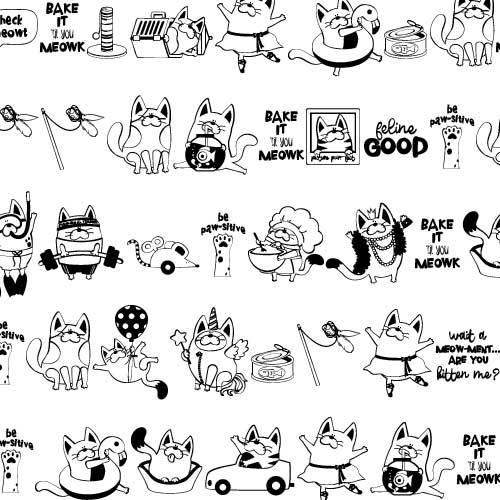
DB Check Meowt - DB
This adorable doodlebat font features 26 whimsical cats living their best life. Perfect for cards, crafts, gifts, planner stickers, scrapbook pages, classrooms and more!